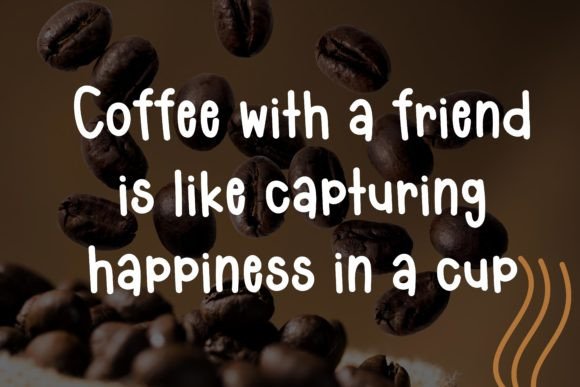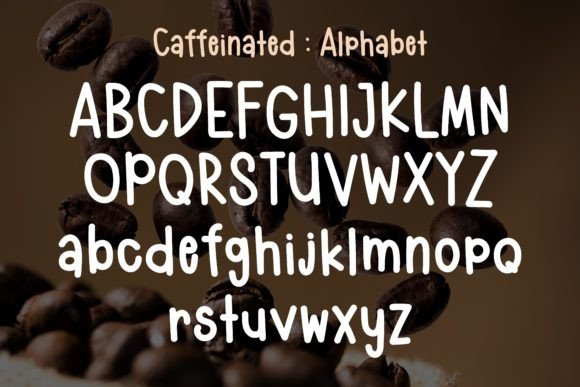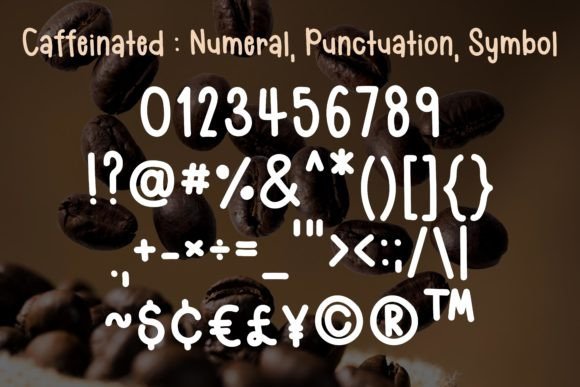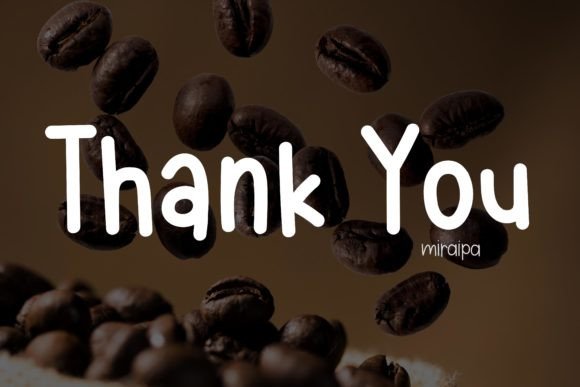
The Ultimate Guide to Caffeinated Font: Elevate Your Designs with a Friendly Touch
Have you ever been in the middle of a design project, and suddenly, you just can’t seem to find the right font? I recall a particularly frustrating moment when I was working on a wedding invitation design. My client wanted something that exuded warmth, friendliness, and a touch of playfulness. I scoured through my font library, but nothing seemed quite right. That’s when I stumbled upon Caffeinated Font, and it was love at first sight! 💕
An Honest Review of Caffeinated Font
Caffeinated Font has quickly become a staple in my design toolkit, and for good reason. Here’s what I love about it:
• ✨ Friendly and lovely style that’s perfect for a wide range of projects
• ✅ Highly versatile and adaptable to different design contexts
• 💖 Aesthetic that works beautifully for child-related designs, greeting cards, and social media posts
Of course, no font is perfect, and Caffeinated Font does have a few minor quirks:
• 🤔 Some users may find the font a tad too casual for very formal projects
• ⚠️ Limited availability of certain OpenType features in certain software
The Backstory Behind Caffeinated Font
Caffeinated Font was designed with the intention of creating a friendly, approachable aesthetic. The designer aimed to craft a font that would bring a smile to the user’s face and make their designs feel more approachable. Whether it’s a diary planner, a wedding invitation, or a social media post, Caffeinated Font is designed to add a touch of warmth and personality.
What type of projects is Caffeinated Font best suited for? Caffeinated Font is versatile and can be used for a wide range of projects, including diary planners, back-to-school projects, wedding decorations, invitations, festivals, posters, blogs, clothing, child-related designs, greeting cards, and social media posts.
Does Caffeinated Font support OpenType features? Yes, Caffeinated Font supports OpenType features, including stylistic alternates and glyphs, which can be accessed in compatible software like Adobe Photoshop and Illustrator.